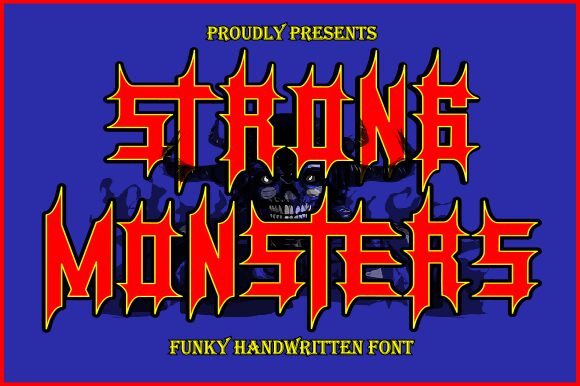
Strong Monsters Display Font is a unique and dramatic blackletter font. Add it to your creative ideas and notice how it makes them stand out!
Strong Monsters